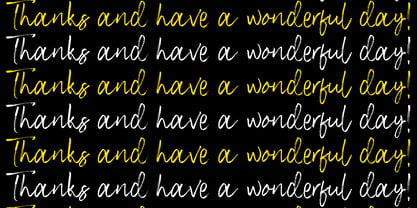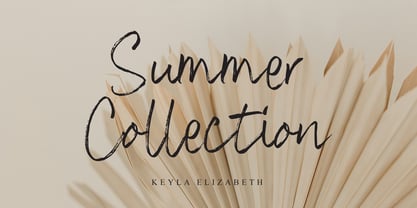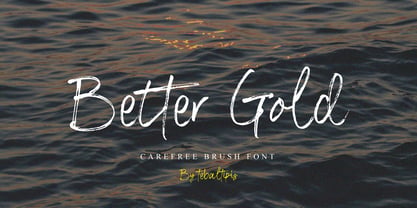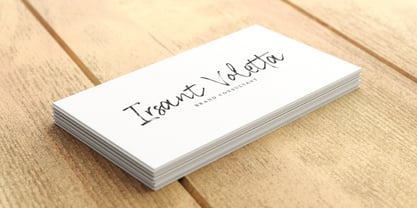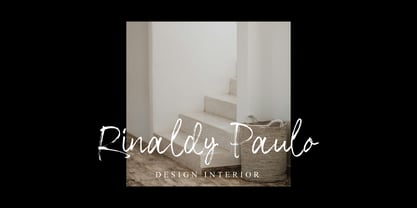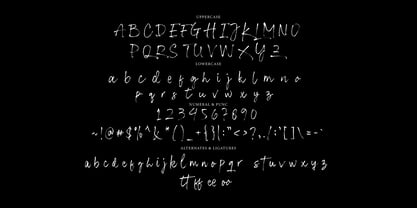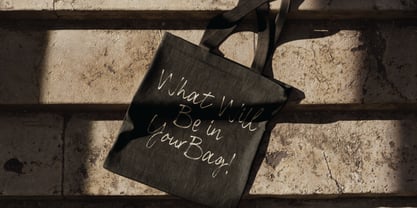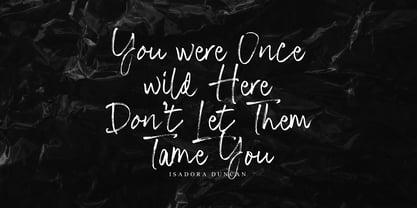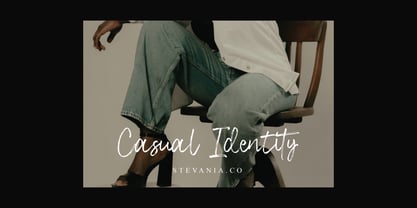
Better Gold Brush
by Tebaltipis Studio
The Better Gold Brush Font Family was designed by Dzulka Elfira and published by Tebaltipis Studio. Better Gold Brush contains 1 styles. More about this family
Better Gold Brush – Carefree Brush Font Better Gold Brush is a charming and expressive brush font designed to bring a sense of warmth and spontaneity to your creative projects. With its natural brush strokes and hand-drawn feel, this font is perfect for branding, packaging, social media graphics, and handwritten quotes. Created by Tebaltipis, Better Gold Brush blends casual elegance with a playful attitude, making it ideal for designs that need a personal and authentic touch. Rough/Brushed Texture: A “dirty” and textural effect, as if ink or paint has blended into the surface, enhancing the organic and warm feel. Visual Affirmation: The capital letters have uneven thickness and tapered edges, providing an interesting visual dynamic. Subtle Typography: The tagline below “Better Gold Brush” is written in thin letters, as if written with a small brush—balancing the visual power of the main title with the subtlety of the supporting typography.
Designers: Dzulka Elfira
Foundry: Tebaltipis Studio
Better Gold Brush